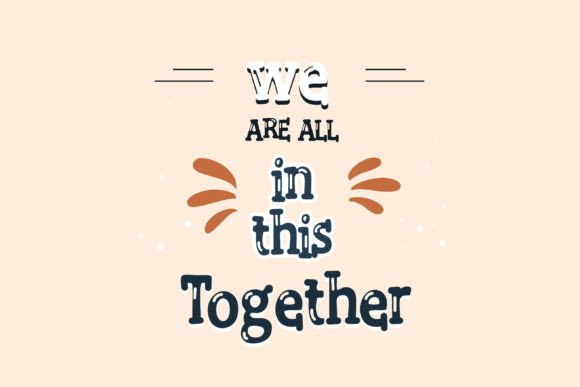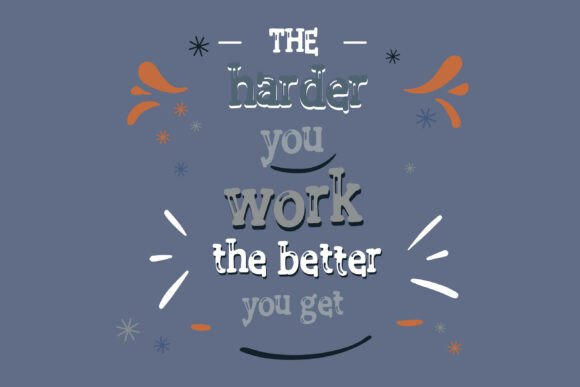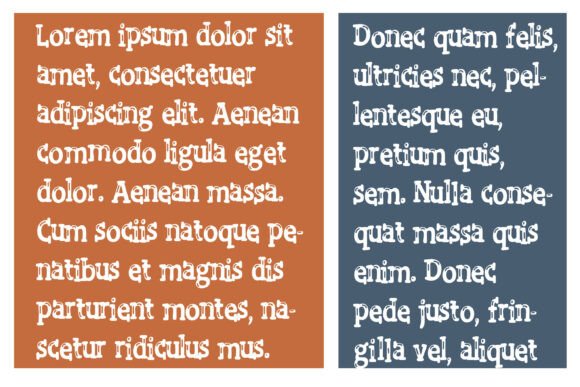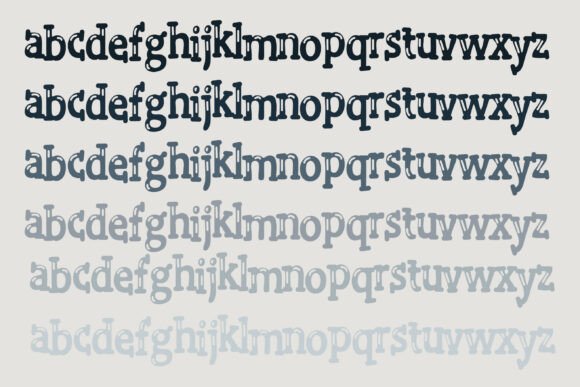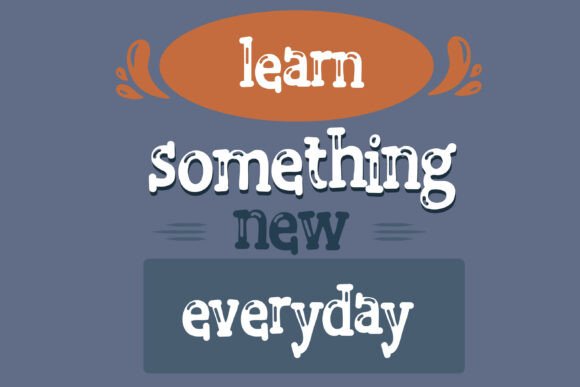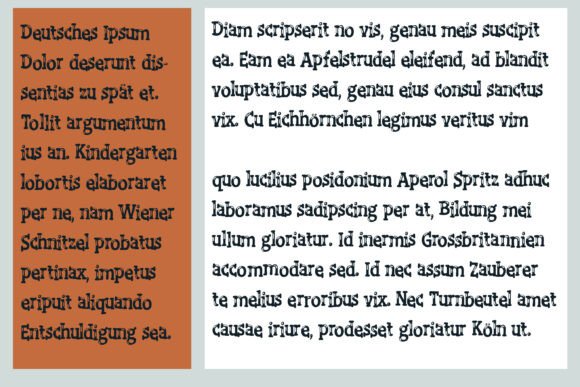
Introduction to Pn Brown Sugar Glow Fn Font Font
Fonts play a crucial role in design, and the Pn Brown Sugar Glow Fn Font font is a typeface that brings both character and versatility to any project. Whether you’re working on a branding project, a website, or a print design, the Pn Brown Sugar Glow Fn Font font offers a unique style that can elevate your work.
Brown Sugar is a bold and playful crafty serif font with a warm, sugary twist.
Its rounded terminals and chunky letterforms are softened by whimsical, drip-like details that evoke a sense of sweetness and personality Designed with a handcrafted flair, the font feels rich and approachableโmuch like its namesake.
Key Features of Pn Brown Sugar Glow Fn Font Font
- โ High-quality typeface designed for professional use
- โ Includes a wide range of glyphs and characters
- โ Ideal for logos, branding, websites, and print
Why Choose Pn Brown Sugar Glow Fn Font Font?
The Pn Brown Sugar Glow Fn Font font is more than just a typeface โ it’s a design tool that helps you communicate your message with style and clarity. Its unique character set and versatile design make it suitable for a wide range of applications, from elegant invitations to bold headlines.
With its carefully crafted letterforms and balanced proportions, the Pn Brown Sugar Glow Fn Font font ensures readability and visual appeal across all mediums.
What makes Pn Brown Sugar Glow Fn Font font special?
The Pn Brown Sugar Glow Fn Font font stands out with its unique design, exceptional readability, and versatility across various design applications.